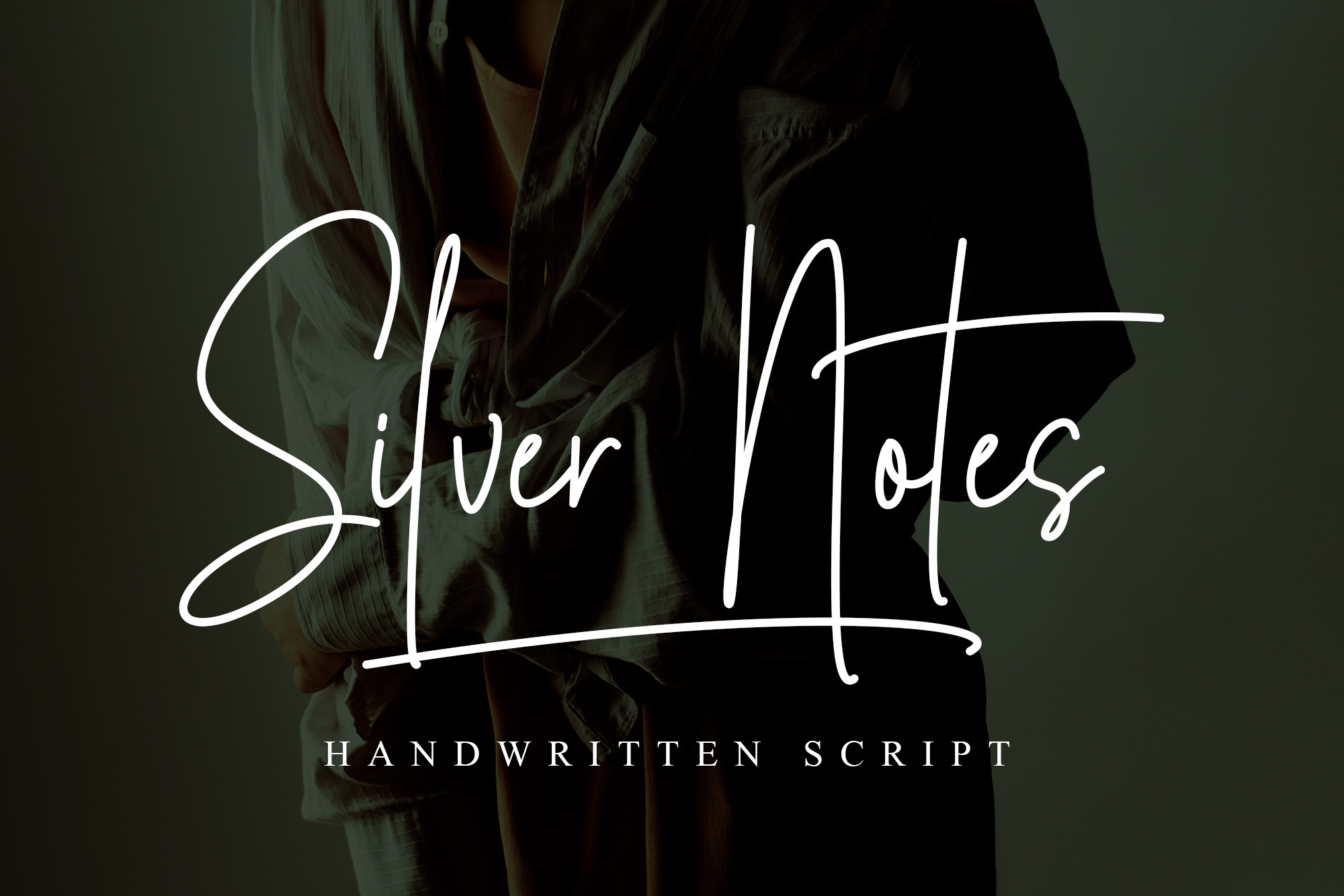
Silver Notes // Handwritten Font
Silver Notes is a stylish handwritten font that has a strong character in each letter and will be very suitable for signatures, branding designs, packaging designs, watermarks, logo designs, wedding designs, stationery, business cards, and more.
- Underline swashes